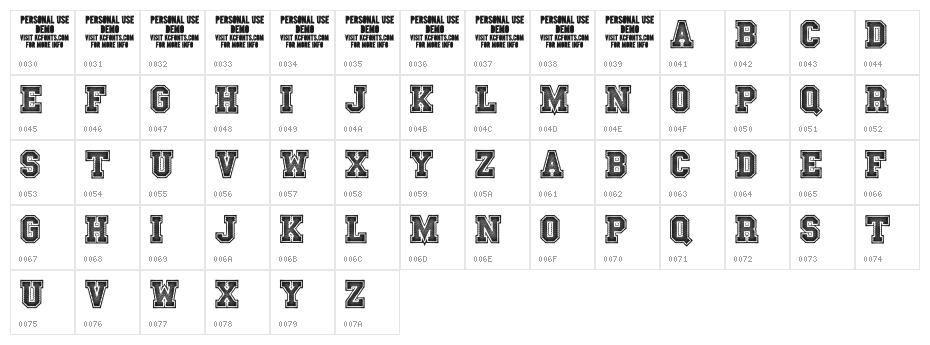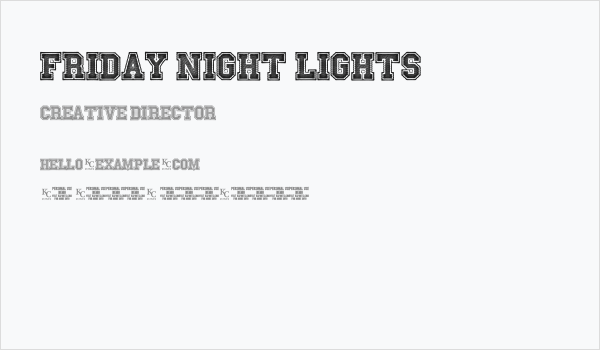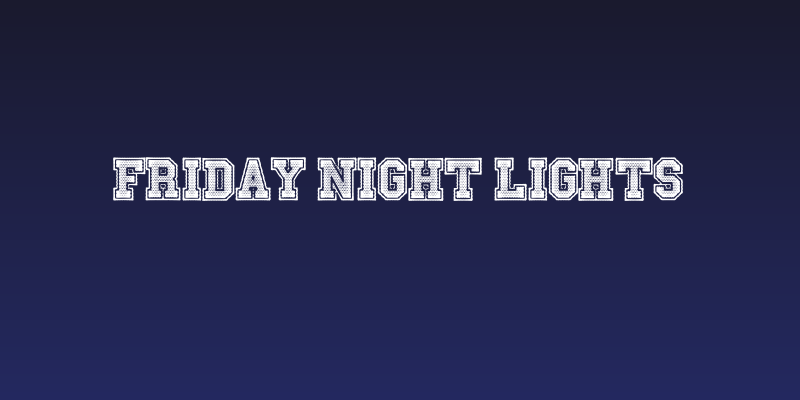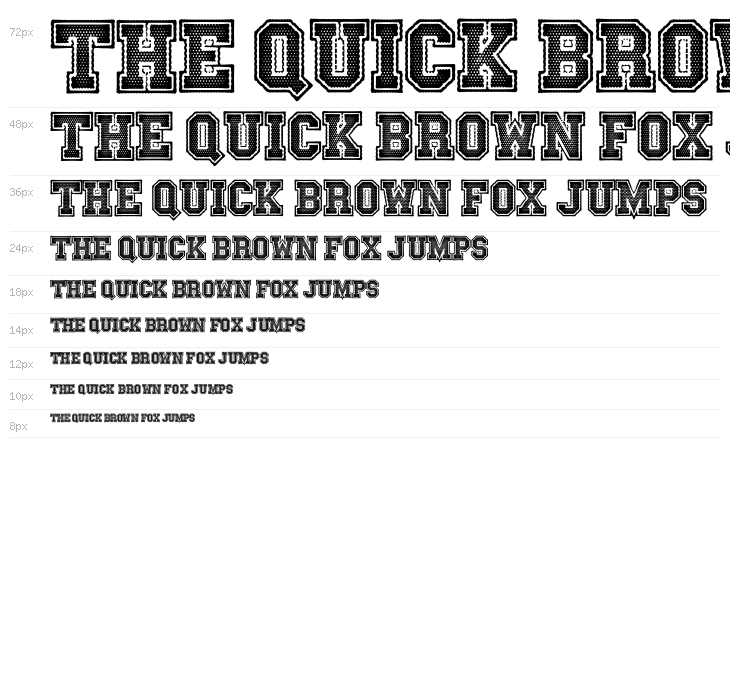
Friday Night Lights Font
Friday Night Lights Description
This font features a bold, athletic style reminiscent of classic varsity lettering. Each character is outlined with a thick border, giving it a strong, impactful presence. The interior of the letters is filled with a dotted pattern, adding texture and visual interest. The overall design is structured and geometric, with sharp angles and clean lines that convey a sense of strength and tradition. This font is ideal for projects that require a sporty or collegiate aesthetic, making it perfect for team logos, sports event posters, and school spirit merchandise.
| Proposed Projects | Ideal for sports team branding, event posters, school merchandise, and athletic apparel designs. |